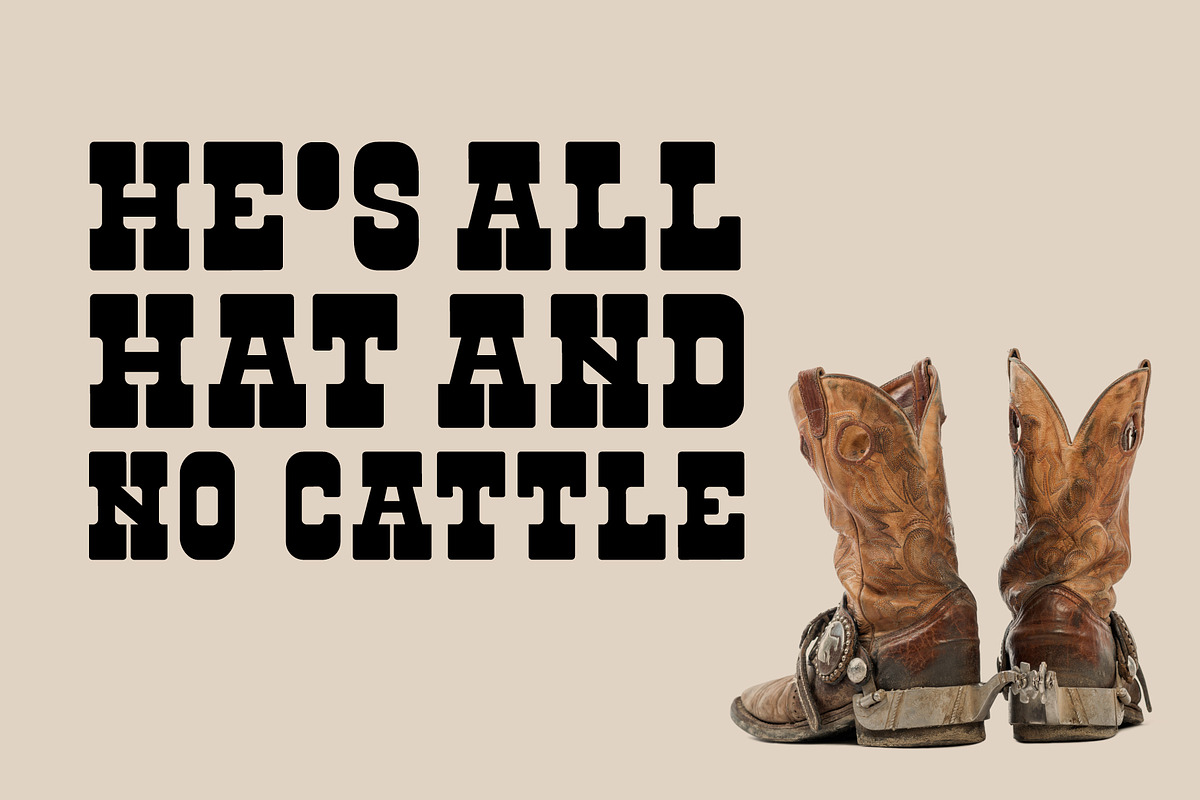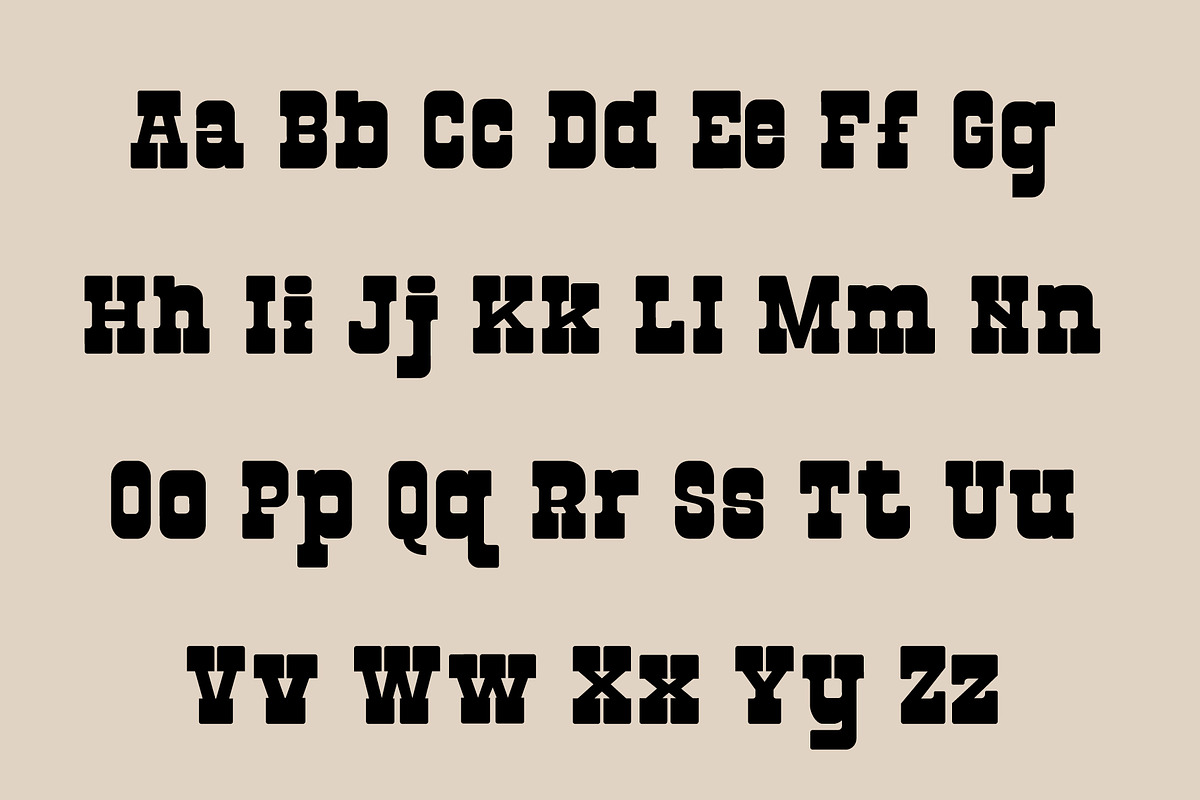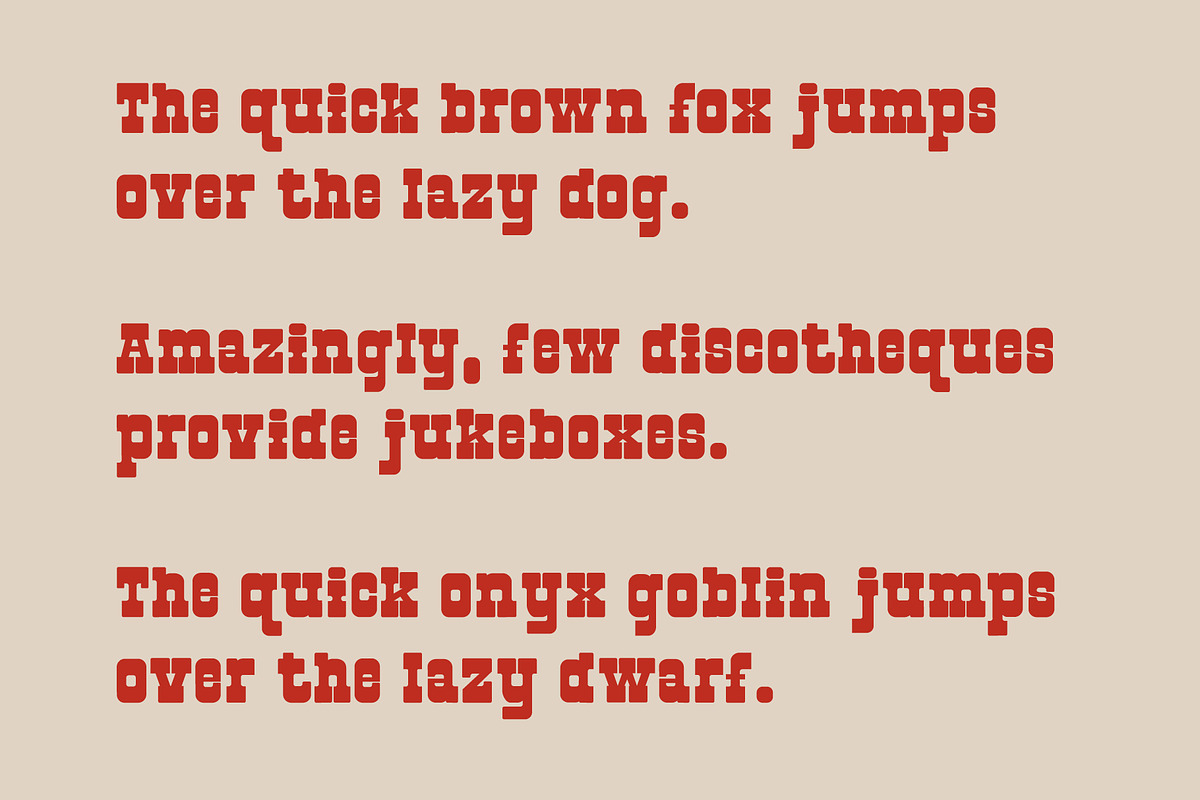
Second Rodeo is a vintage western slab font with sharp characters on each side. Use this display slab font to add that special retro vintage touch to any design. Great for logotype, Stickers, Packaging design, headlines, brand identity, t-shirts or apparel industry, posters, magazines, books, YouTube, Instagram, websites, or any of your creative design projects.